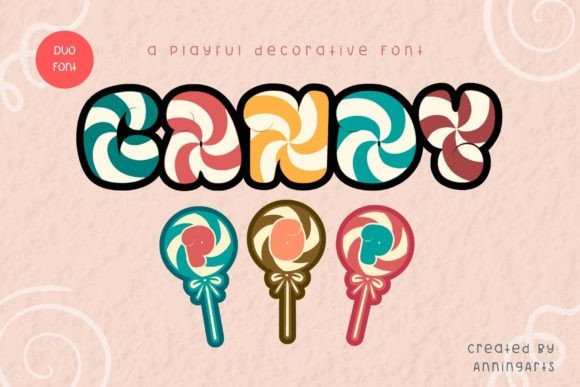
The Sweetest Font Duo: A Deep Dive into Candy Pop
I’ll never forget the time I was working on a project for a children’s birthday party, and I just couldn’t find the right font to capture the playful, whimsical vibe I was going for. The client wanted something that would make their little ones (and let’s be honest, the adults too) feel like they were stepping into a candy wonderland. That’s when I stumbled upon the Candy Pop font duo, and let me tell you, it was love at first sight! 🎉
So, what makes Candy Pop so special? Here are a few things that I absolutely adore about this font duo:
- ✨ Bold and playful designs: The font features bold, swirly designs that mimic the look of candy and lollipops, making it perfect for creative projects that require a dash of sweetness and whimsy.
- ✅ Vibrant colors: The font comes in a range of vibrant colors that add a lively and joyful character to any design.
- 🌈 Charming, candy-inspired shapes: The font’s charming, candy-inspired shapes are sure to delight both kids and adults alike.
Of course, no font is perfect, and Candy Pop does have a few quirks:
- 🤔 Limited use in formal designs: While Candy Pop is perfect for playful, whimsical designs, it may not be the best choice for more formal projects.
- ⚠️ Some glyphs may require manual adjustment: Depending on the platform you’re using, you may need to manually adjust some glyphs to get the best results.
Candy Pop was designed with one goal in mind: to bring a little bit of sweetness and whimsy into the world of design. The designer, inspired by childhood memories of candy and lollipops, set out to create a font that would capture the playful, joyful spirit of these treats. The result is a font duo that’s perfect for creative projects that require a dash of fun and personality.
| Is Candy Pop suitable for formal designs? | While Candy Pop is perfect for playful, whimsical designs, it may not be the best choice for more formal projects. |